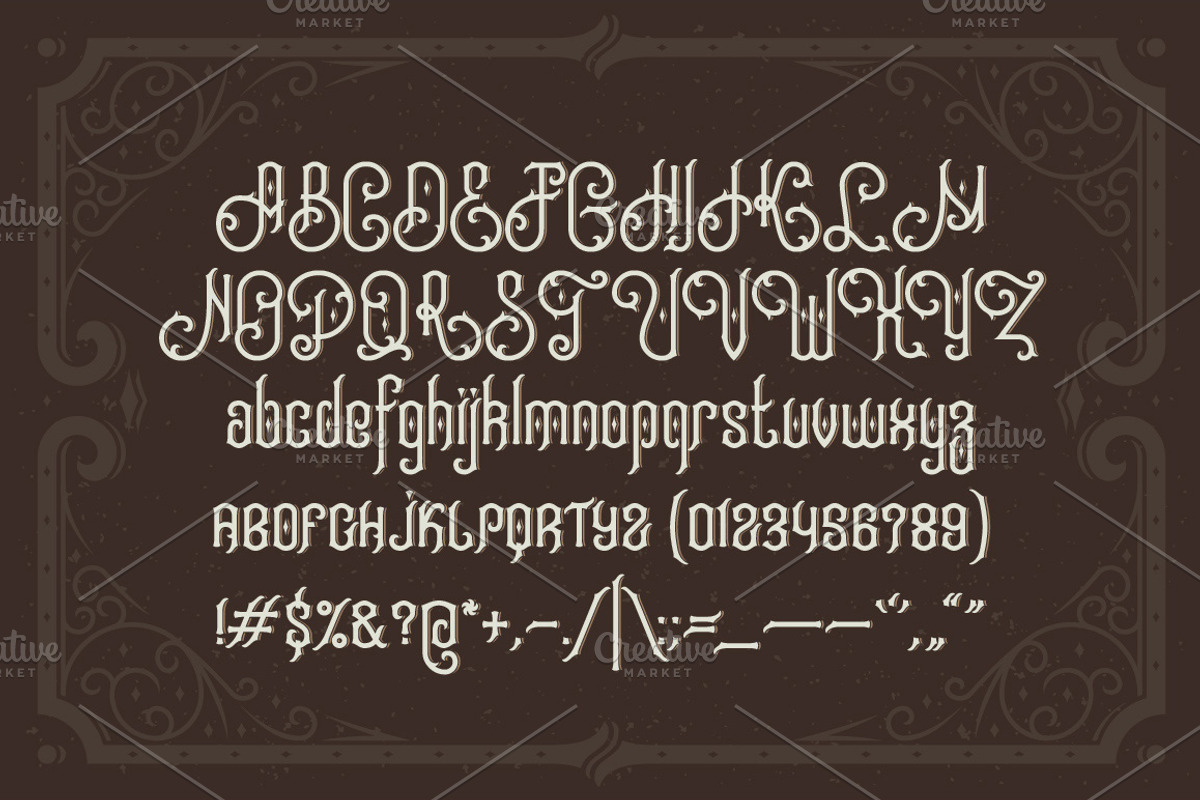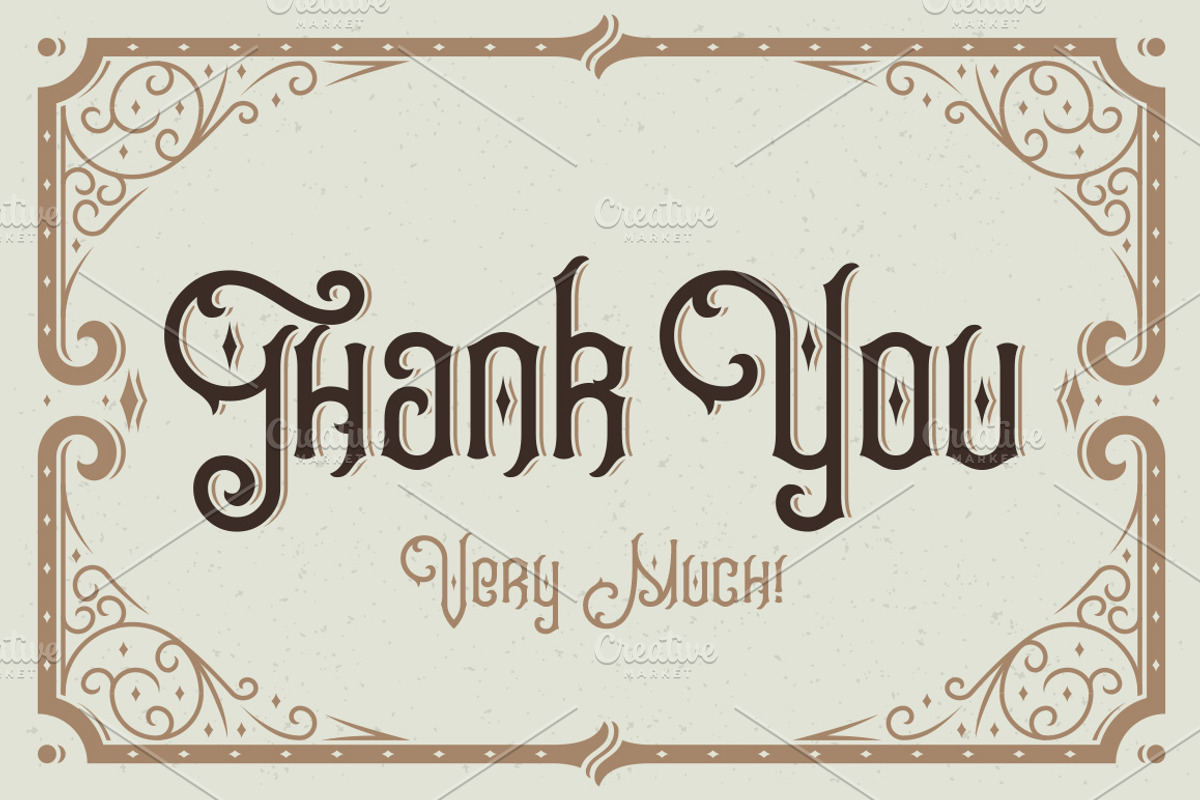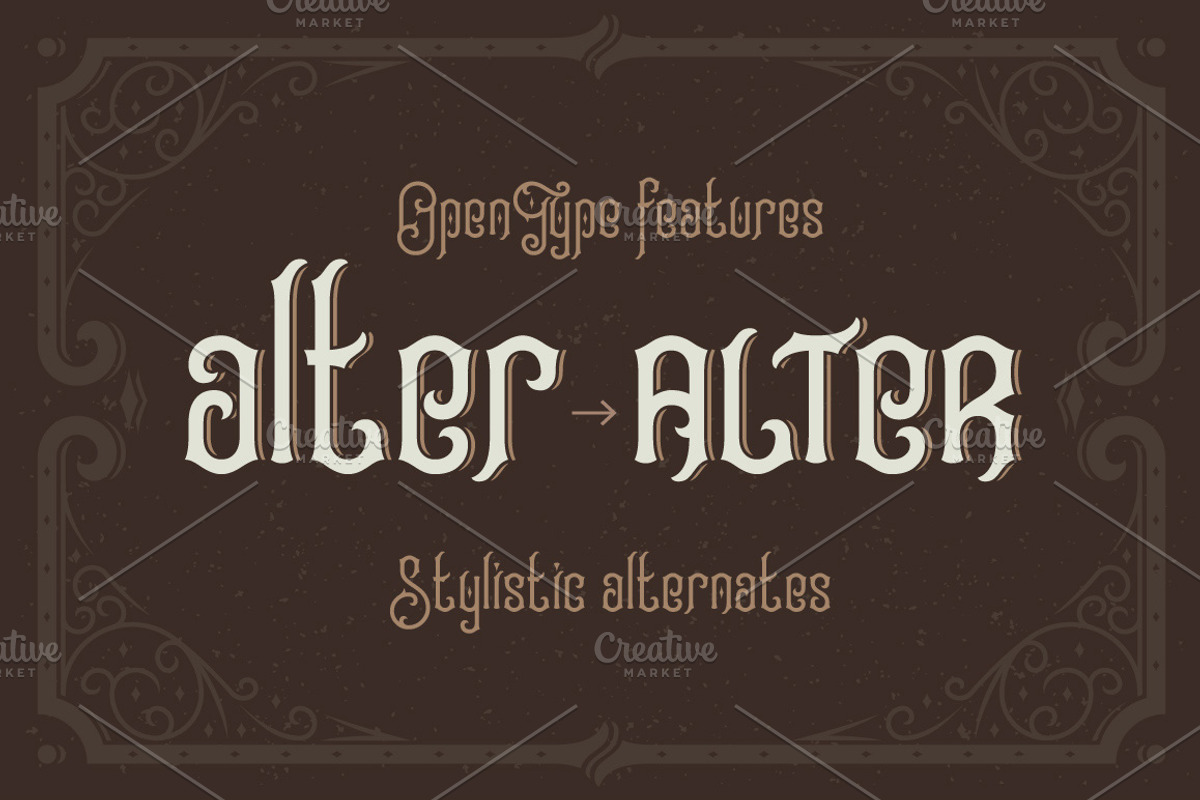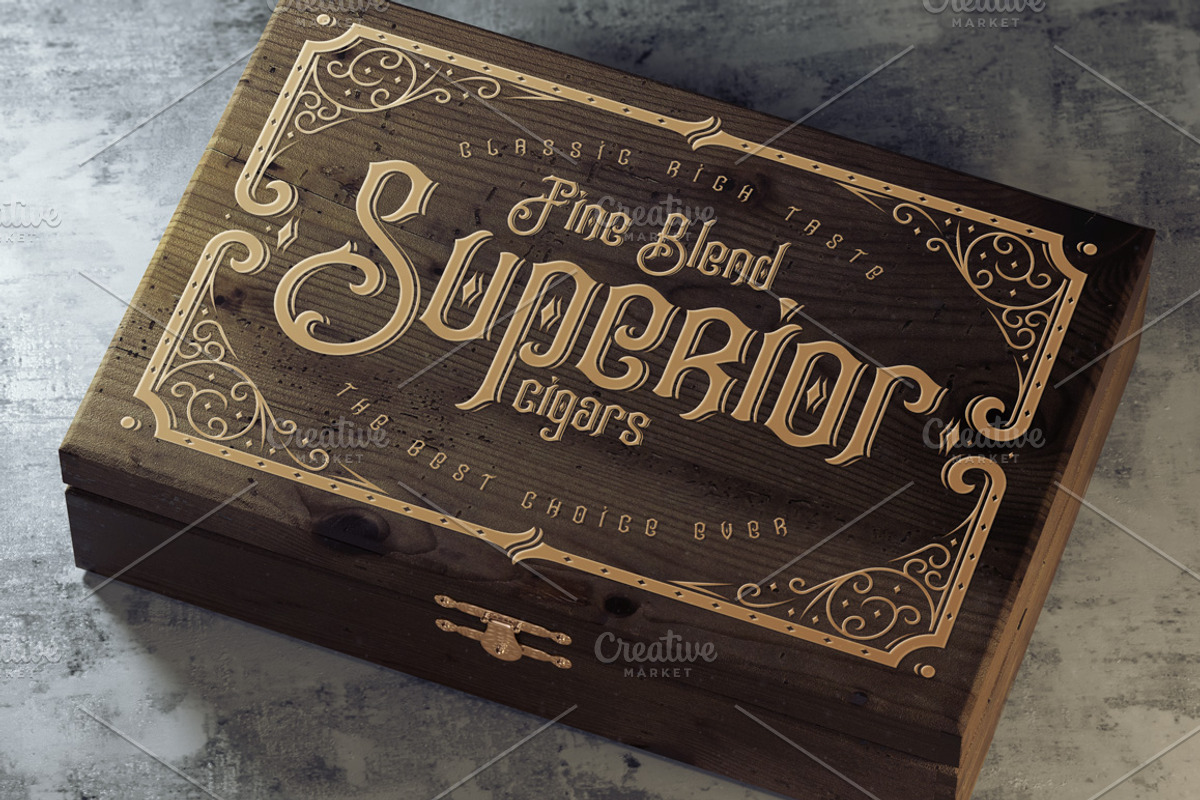
Tobacco Box Font, Mockups, Template!
Tobacco Box Font, Mockups, Template! by Gleb Guralnyk is a font selected for branding, posters, packaging, typography.
- The font has a useful OpenType feature - 15 stilystic alternates, that helps you to fit letters better in your lettering compositions.
Tobacco Box Font, Mockups, Template! by Gleb Guralnyk fits naturally into Branding, posters, packaging, typography.